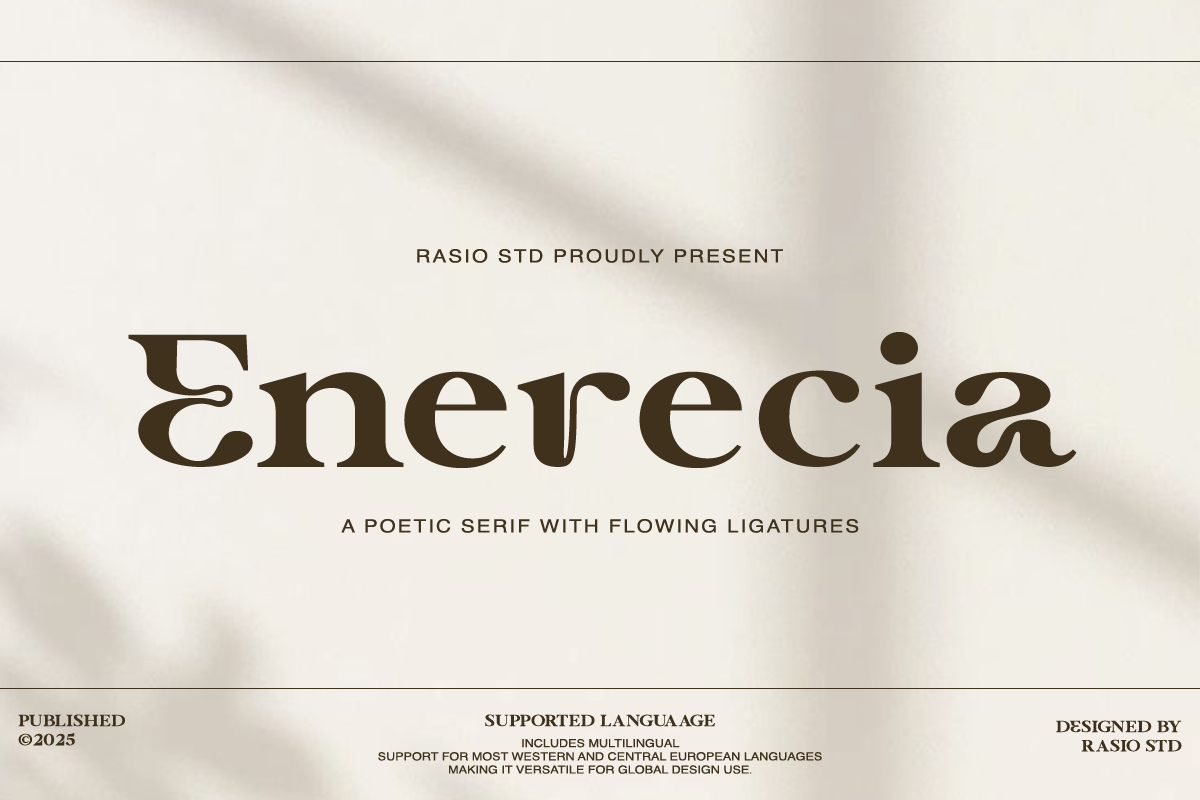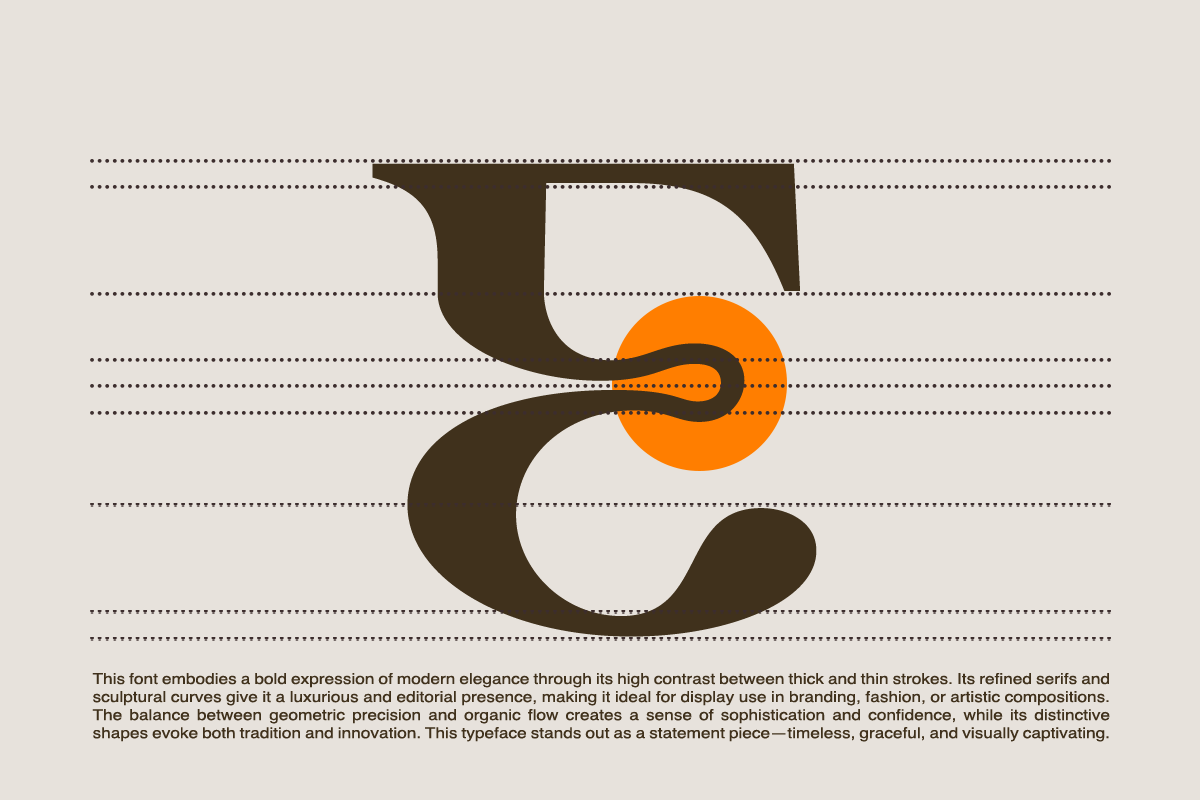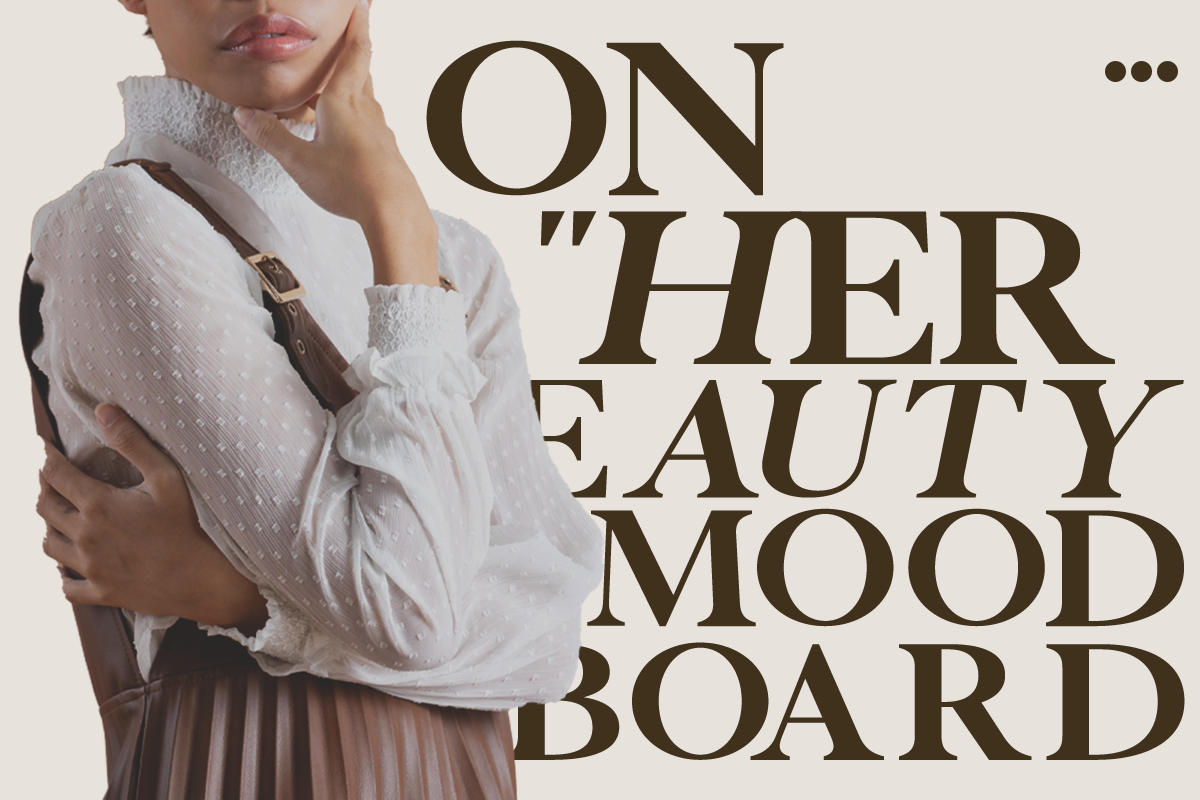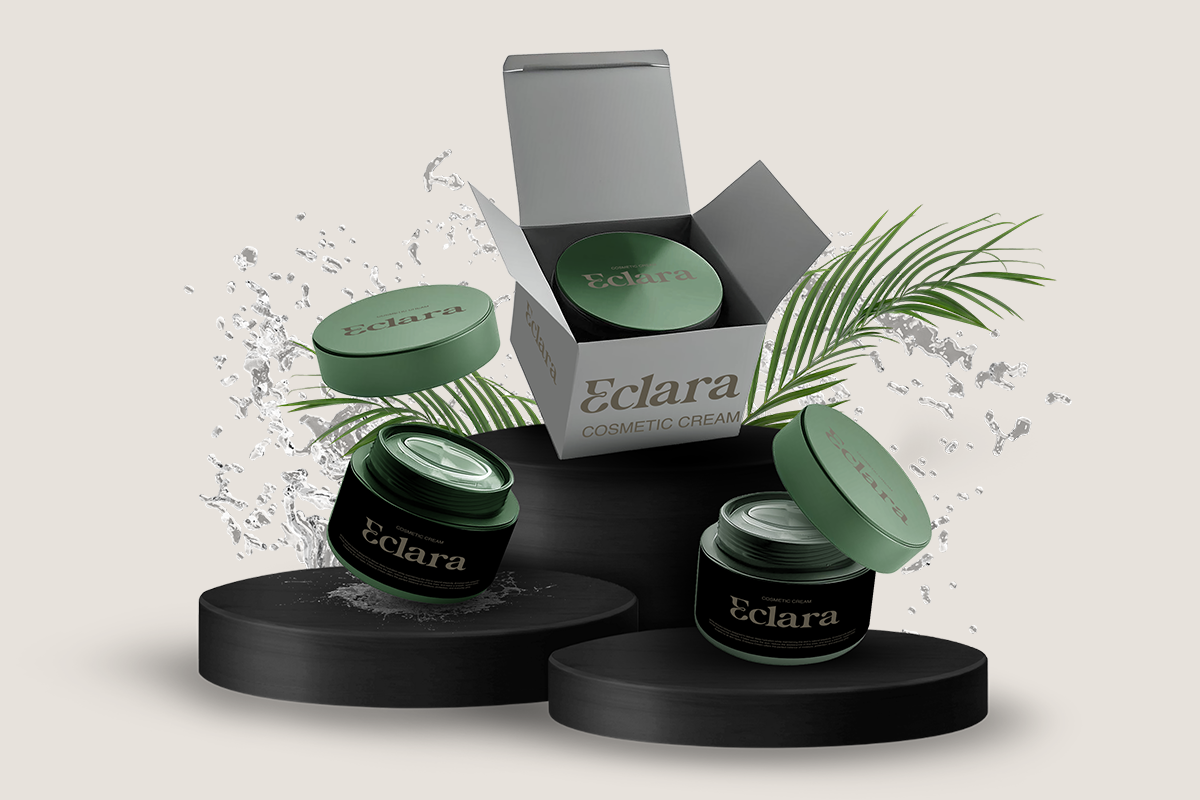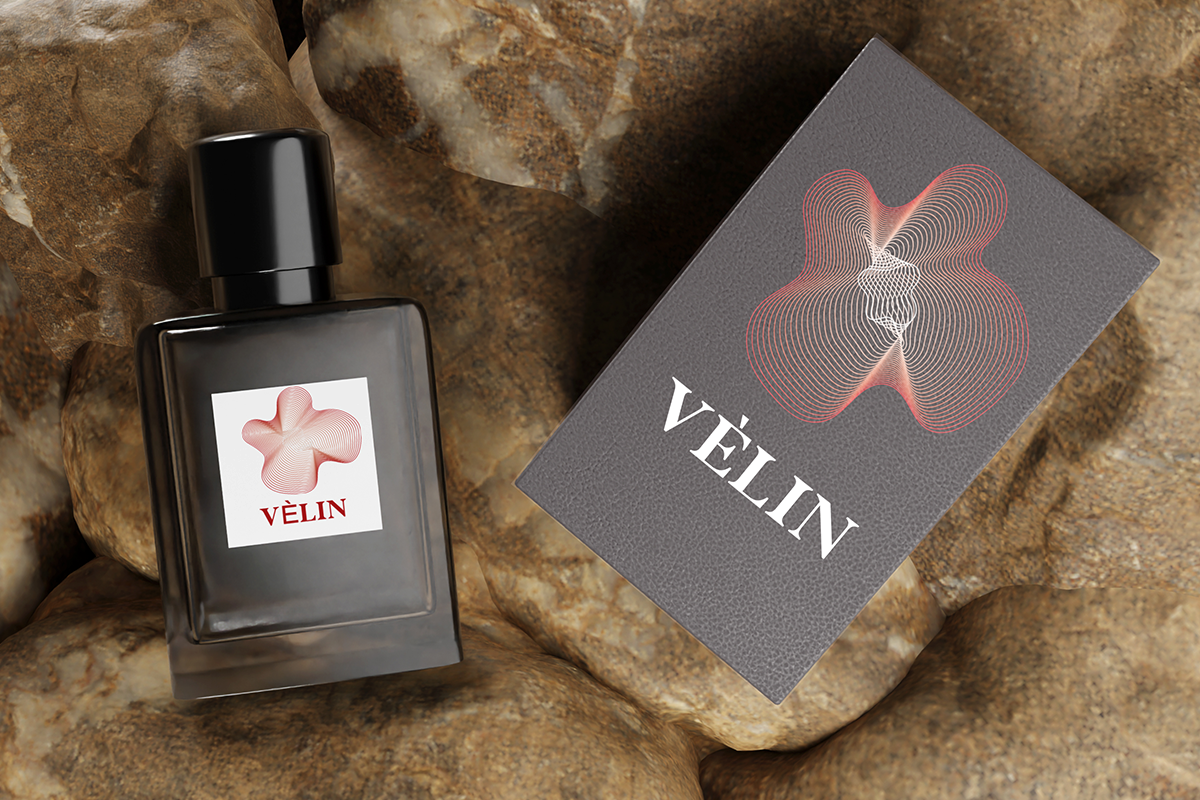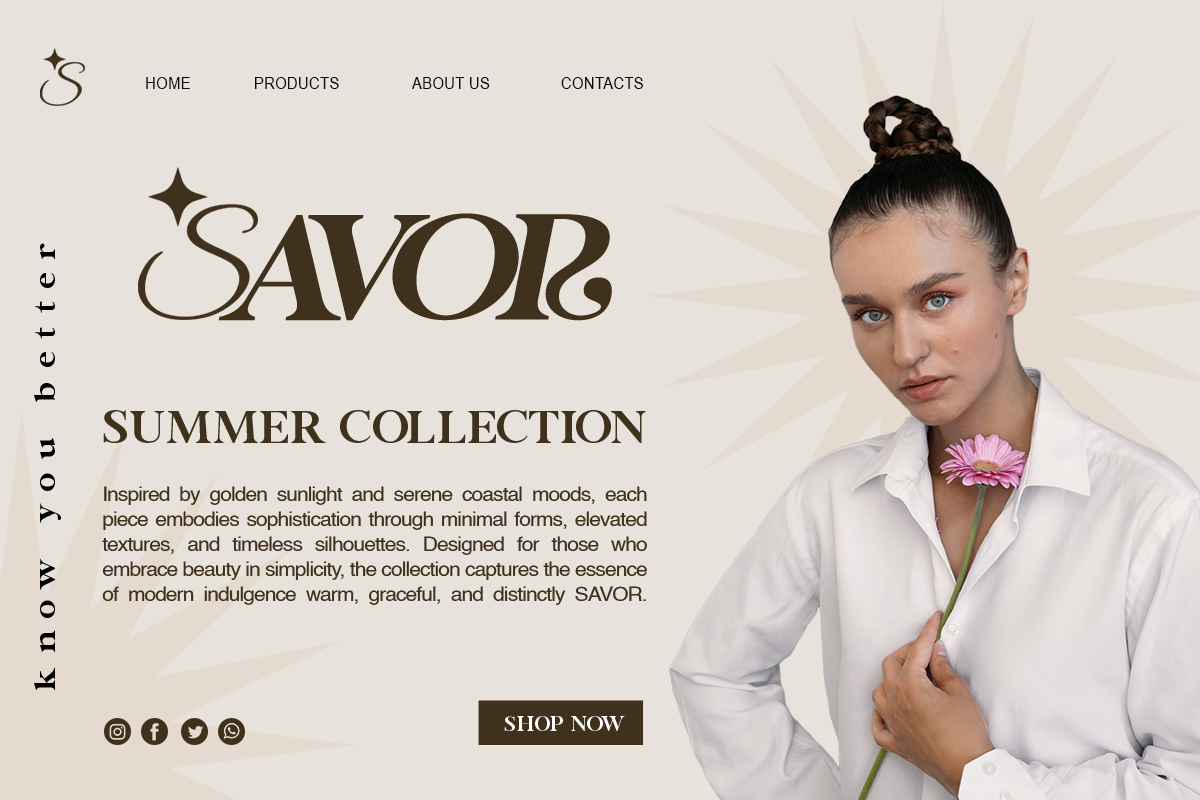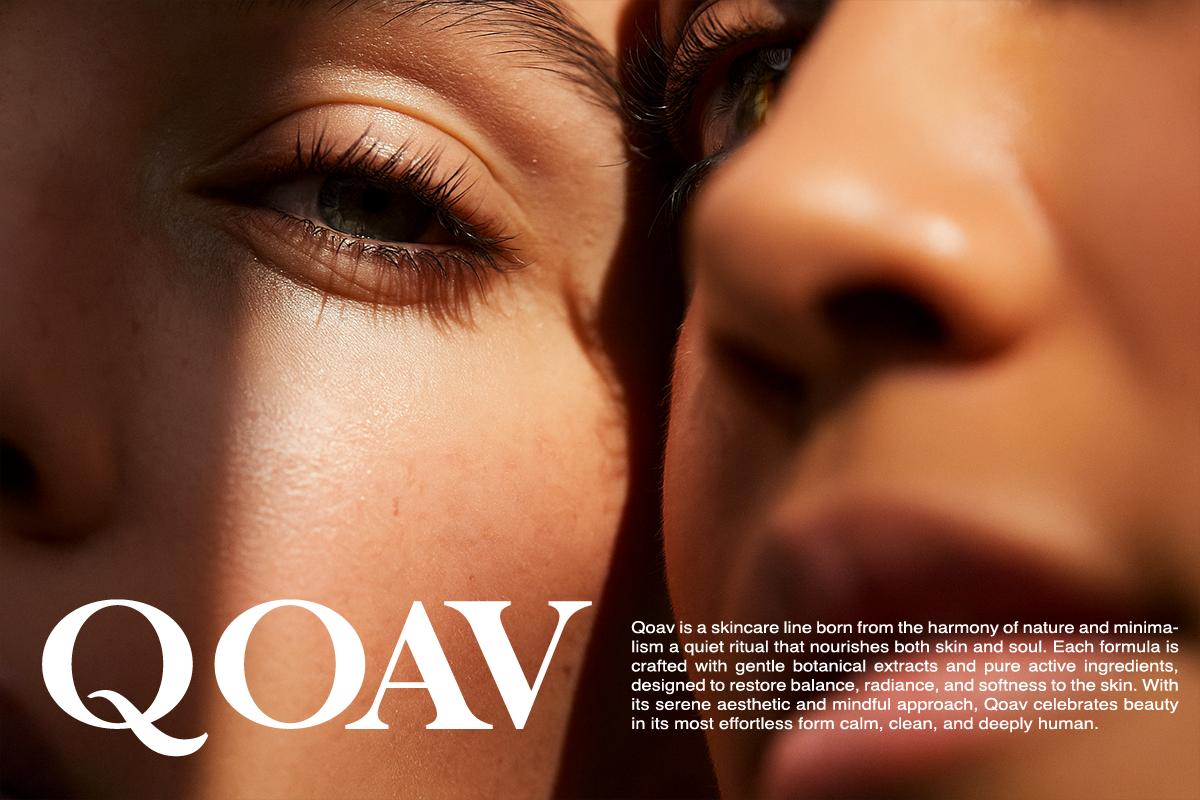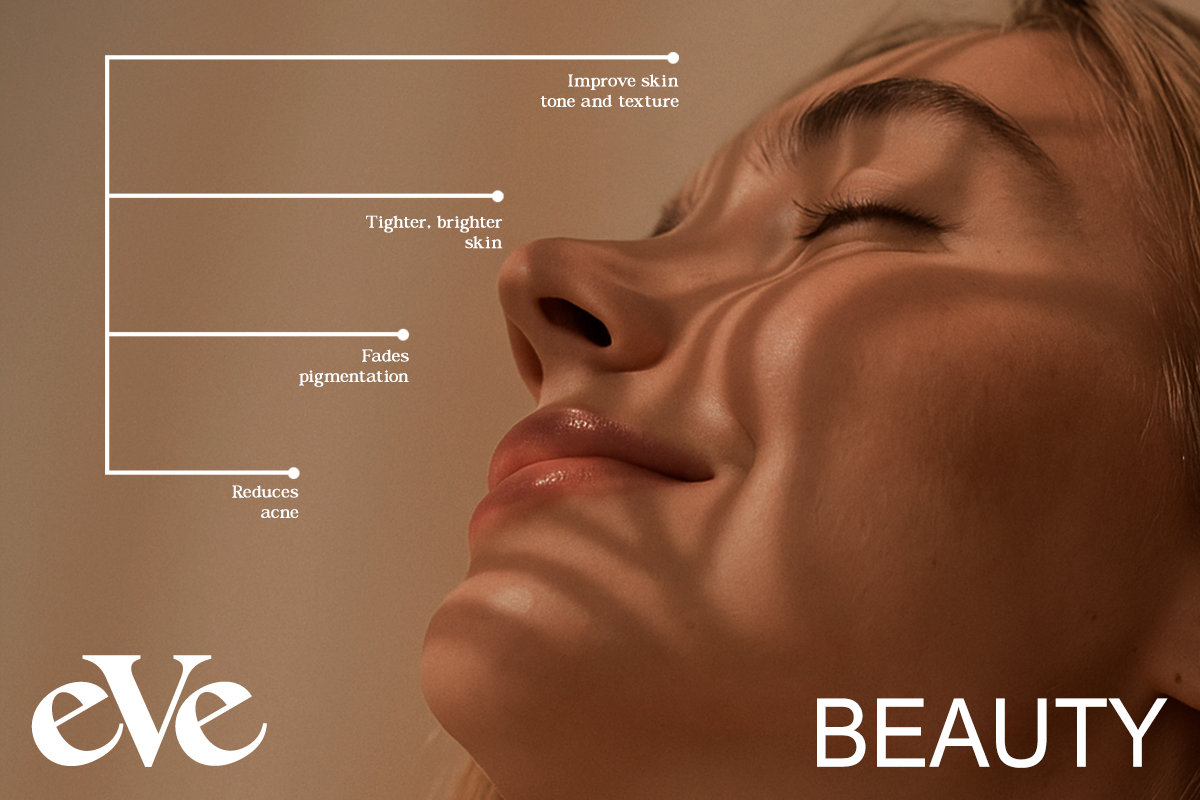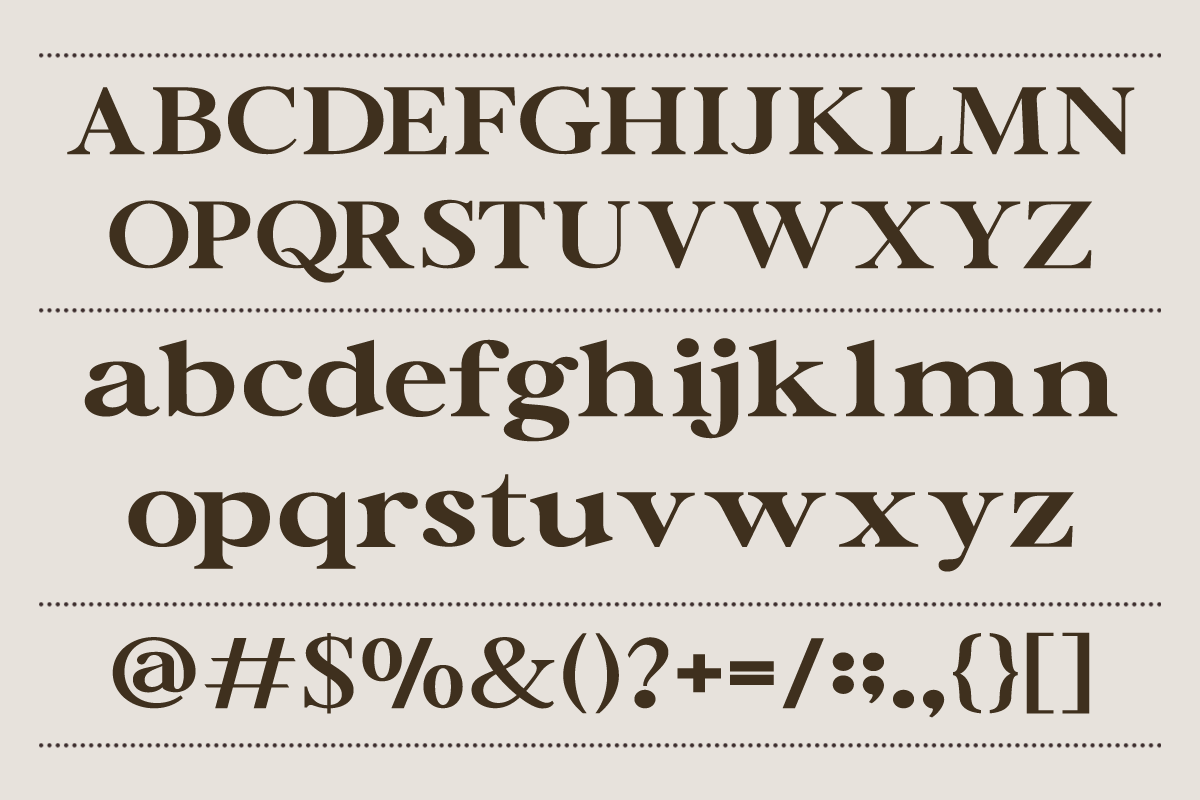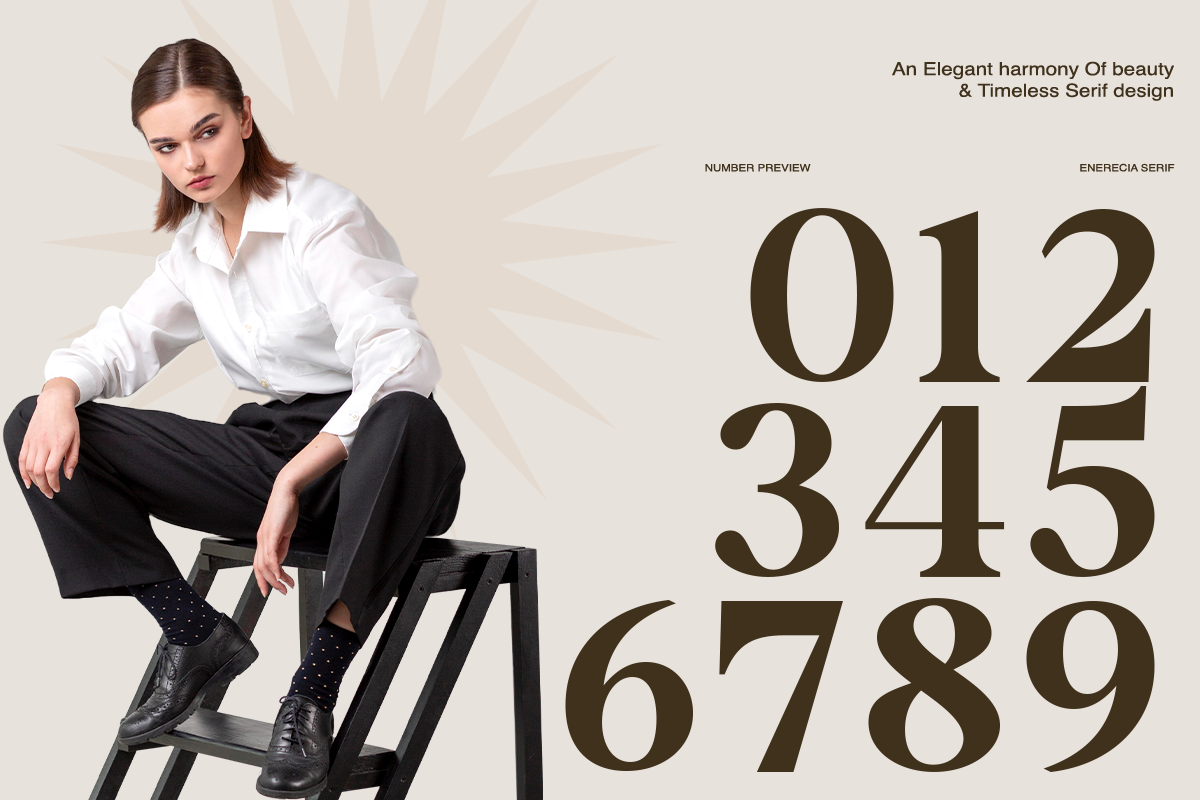
Enerencia Serif Font
Enerecia is a poetic serif font that embodies modern sophistication with a touch of classic artistry. Its elegant ligatures, high contrast strokes, and sculptural curves create a timeless visual flow suited for editorial layouts, branding, fashion design, and refined packaging. The font balances geometric precision with organic rhythm, evoking harmony between strength and grace.
Relevance and Use Cases is perfect for luxury branding, editorial layouts, high-end packaging, art magazines, fashion campaigns, and refined invitations. Enerecia combines precision and emotion, making it an ideal statement font for projects that balance creativity with timeless elegance.
- High-contrast serif with bold strokes and refined thin details
- Sculptural letterforms with smooth curves and distinctive shapes
- Elegant ligatures that add a flowing and artistic character
- Strong serif presence combined with modern editorial styling
- Designed for impactful display with a luxurious and expressive tone
- Luxury branding with a bold and expressive editorial presence
- Logo design with distinctive serif shapes and artistic ligatures
- Fashion and beauty editorials that require high visual impact
- Premium packaging with a dramatic and sophisticated aesthetic
- Social media visuals with elegant and attention-grabbing typography
- Headlines and display compositions with strong character and style
Enerecia bold, elegant, and beautifully expressive